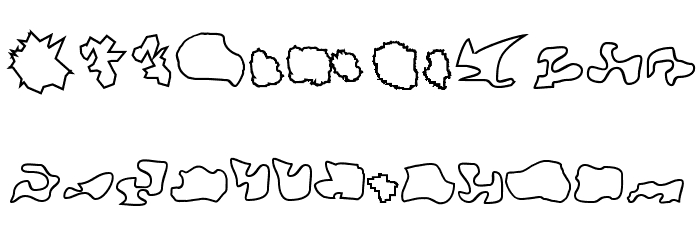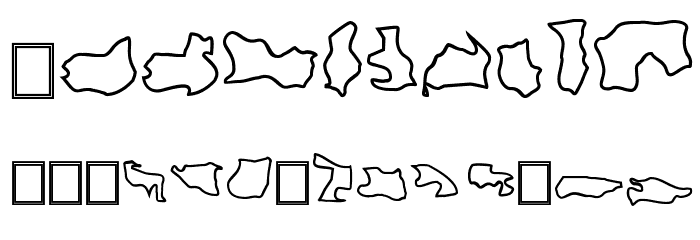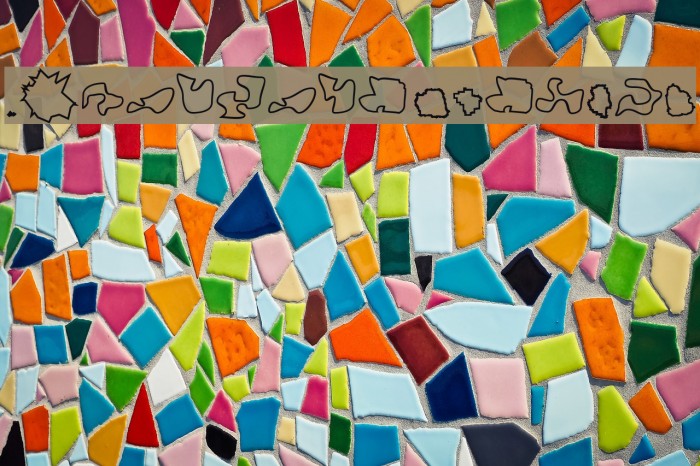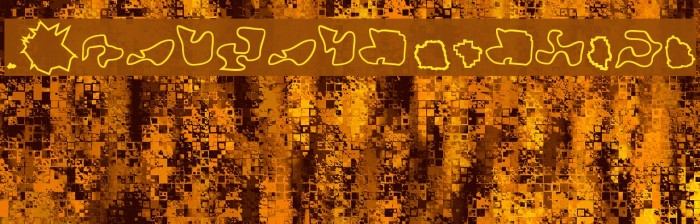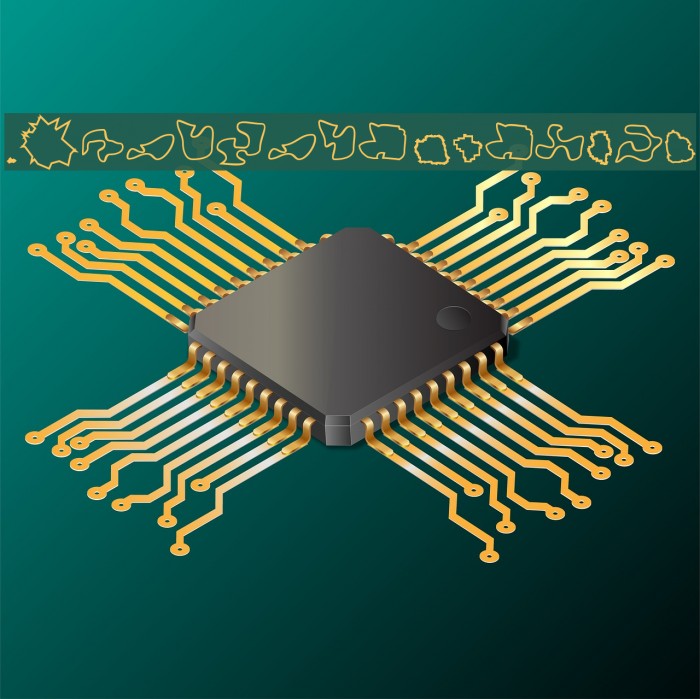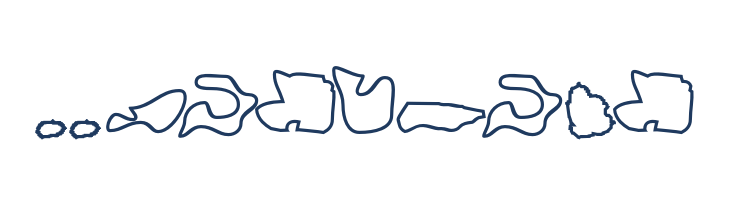
Camosport Outline Font
This font features an abstract and highly decorative style, with each character resembling a unique, irregular shape that appears to be hand-drawn. The outlines are bold and uneven, giving a playful and artistic feel. The characters do not follow traditional forms, making them more suitable for creative and unconventional projects. The font lacks uniformity, with each letter having its own distinct silhouette, contributing to a dynamic and visually engaging appearance. This style is not suited for readability in body text but can be effective in artistic and expressive designs.
An abstract, decorative font with irregular, hand-drawn shapes.
- Proposed Projects: Ideal for artistic projects, creative posters, unique branding, and experimental design work.
- Character Spacing: Wide
- Use Case: Logos, Artistic designs, Posters